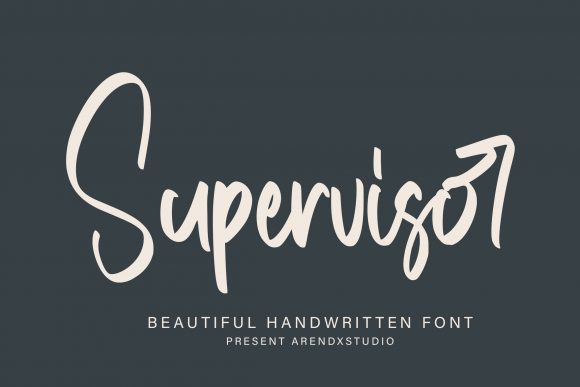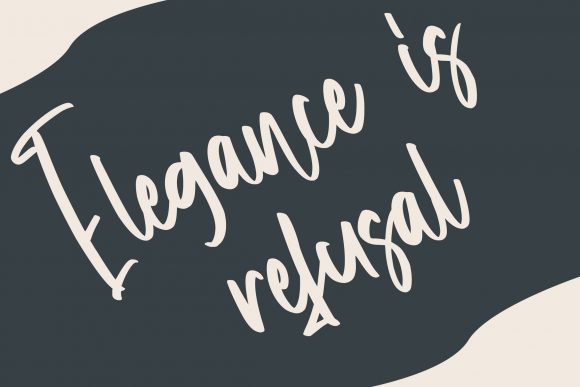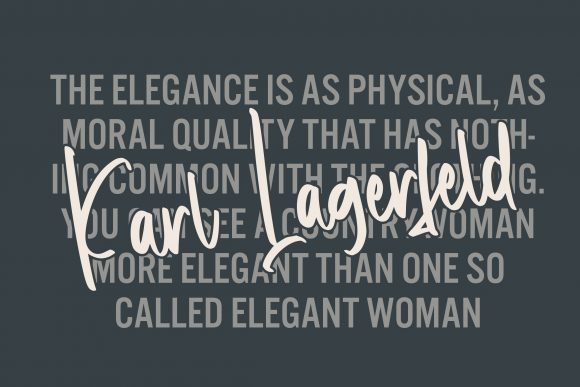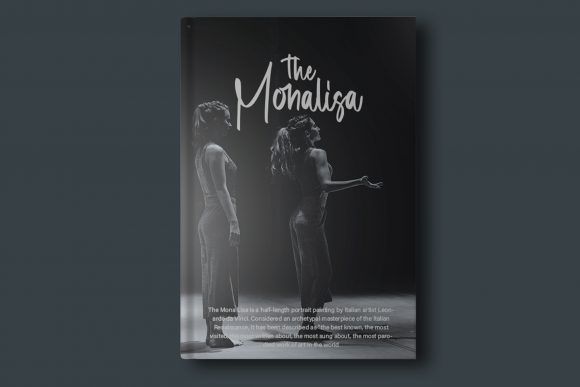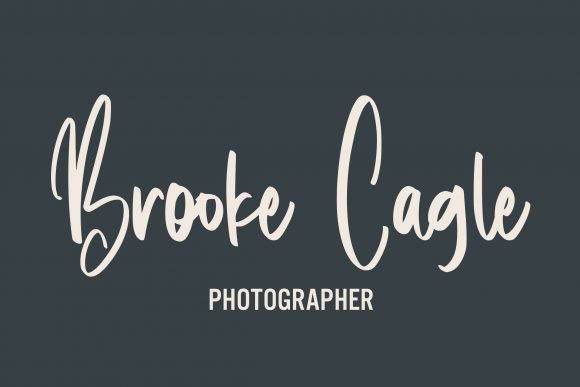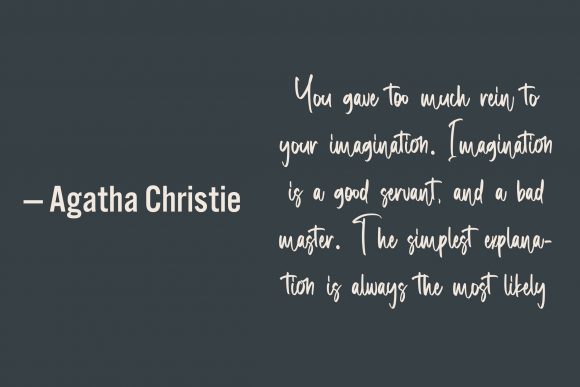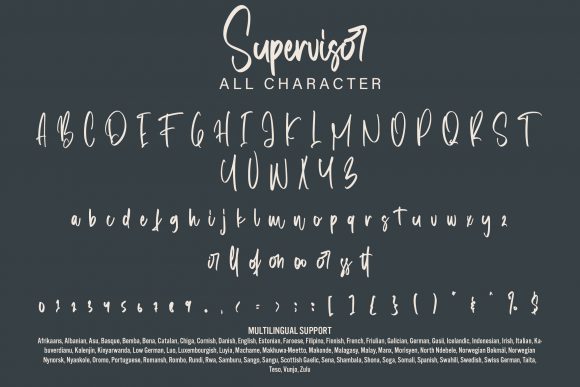
Supervisor Font
About Supervisor Font
Supervisor is an incredibly beautiful paint brushed script font. It has a classy, elegant and modern look that can be used for logos, branding, invitations, stationery, wedding designs, social media posts, and much more!